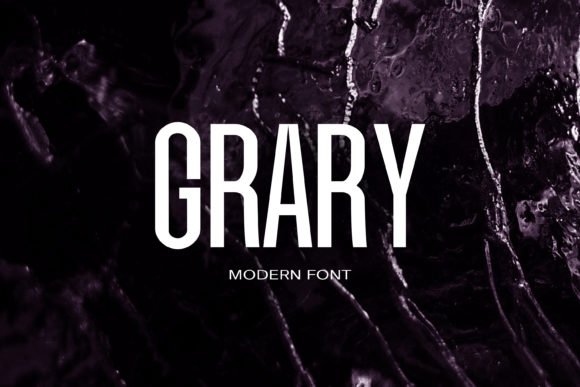
Discovering the Timeless Charm of Grary Font
As a designer, there’s nothing quite like the thrill of stumbling upon a font that sparks inspiration. For me, it was a late-night project when I first laid eyes on Grary Font. Its clean lines and subtle curves immediately caught my attention, and I knew I had to learn more. Grary Font is a sans serif font designed to evoke a sense of timeless charm, making it perfect for a wide range of creative projects.
What sets Grary Font apart is its versatility. Whether you’re working on a logo, brochure, or website, this font is sure to bring a touch of sophistication and elegance to your design. For designers, Grary Font is a valuable asset that can help elevate your work and make it stand out from the crowd. With its unique blend of modernity and classic charm, Grary Font is an essential tool for anyone looking to add a bit of magic to their designs.
Grary Font Key Features
- Unique Characteristics: Grary Font features a unique blend of modern and vintage elements, with geometric shapes and subtle texture, giving it a distinctive look.
- Font Style: Grary Font comes in 6 different font styles, including Regular, Bold, Italic, Bold Italic, Condensed, and Extended, allowing designers to create a wide range of visual effects.
Grary Font Review
Overall, I think the Grary Font has some great qualities that make it a solid choice for certain projects, but it also has some limitations that might hold it back from being a top contender. ✨
- Unique aesthetic: The Grary Font has a distinct, modern feel that’s perfect for brands looking to stand out.
- Legibility: Despite its unconventional design, the font is surprisingly easy to read, making it a great choice for body text.
- Flexibility: Grary Font works well in a variety of contexts, from digital interfaces to print materials.
- Limited character set: The font is missing some essential characters, which might make it difficult to use for languages that require a full character set.
- Lack of style variations: The font is available in a limited range of weights and styles, which might limit its versatility.
- Not suitable for small text: The font’s unique design makes it difficult to read in small sizes, which might limit its use in certain contexts.
- ⚠️ Potential font rendering issues: Some users have reported issues with font rendering on certain platforms, which might affect the overall appearance of your design.
Overall, I think the Grary Font is a solid choice for projects that require a modern, unique aesthetic. However, its limitations might make it less suitable for more complex projects or those that require a full range of font options.
Tips for Getting the Most Out of Grary Font
Use Grary Font for titles and headings to create a bold and eye-catching design.
Pair Grary Font with other fonts to create a visually appealing combination.
Grary Font is ideal for:
Marketing materials, such as brochures and flyers.
Branding and logos.
Web design and user interface elements.